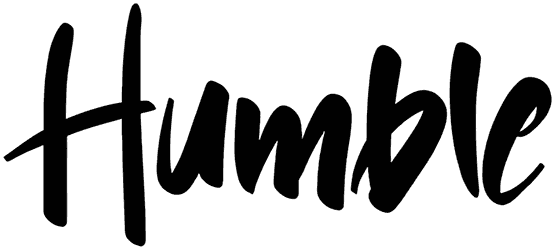
Humble Font
Humble is derived from handwritten fonts but combined with brushes for a more attractive look. This font is a professional version of brush fonts that has a strong baseline for conveying concepts and looks great for handwritten texts.
This script font has been designed in such a way that they have brought a sharp and pleasant look to it. For this reason, it is an ideal option for advertisements, headers, and banners.